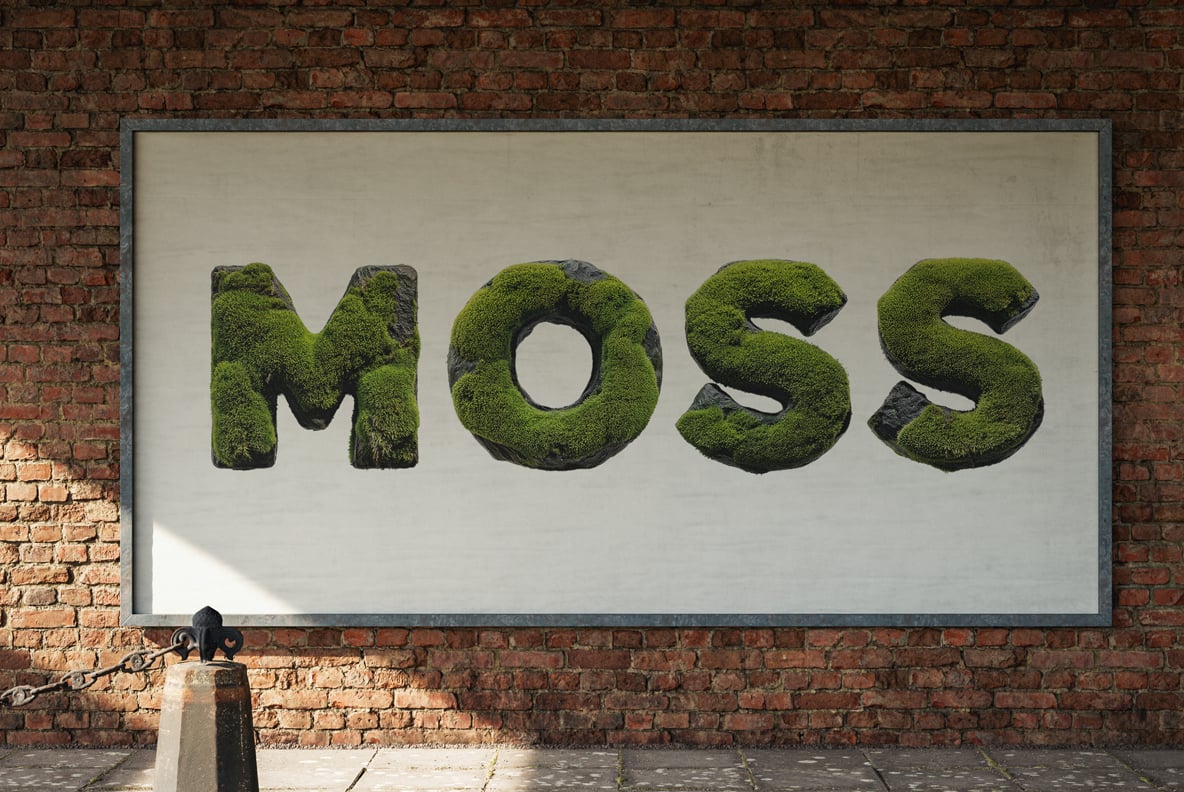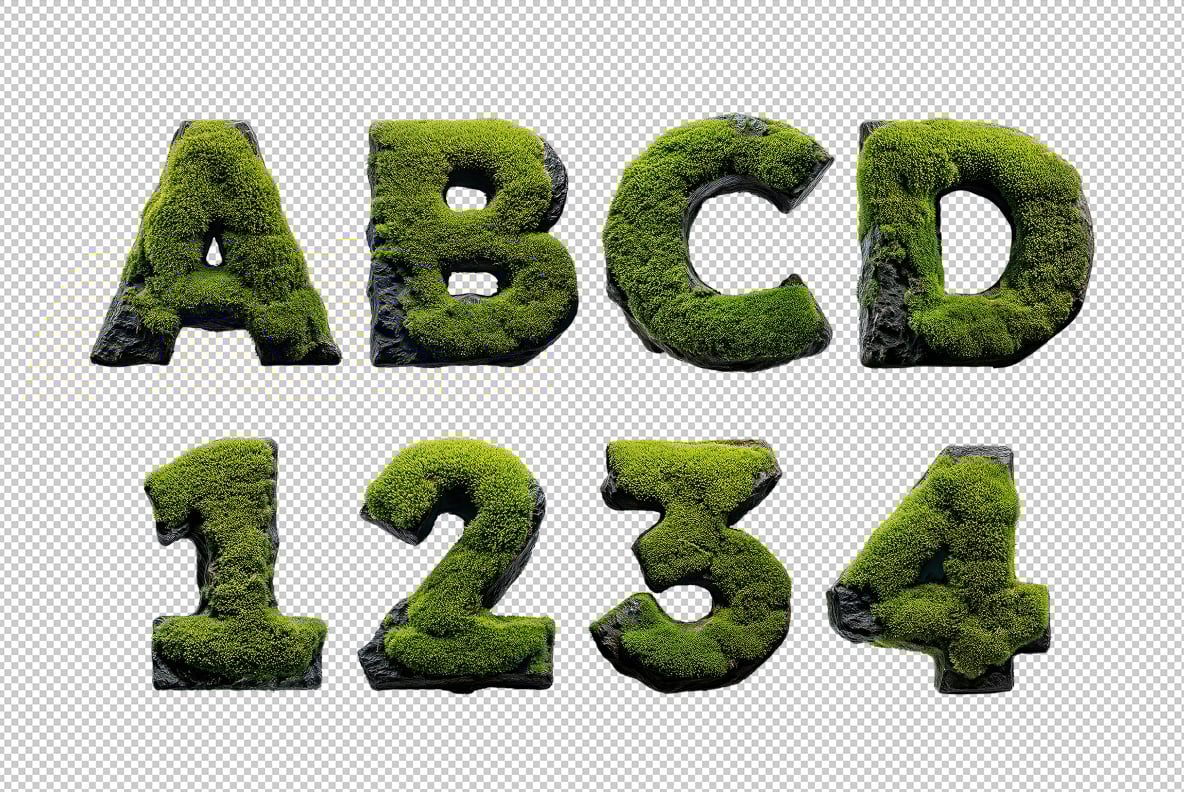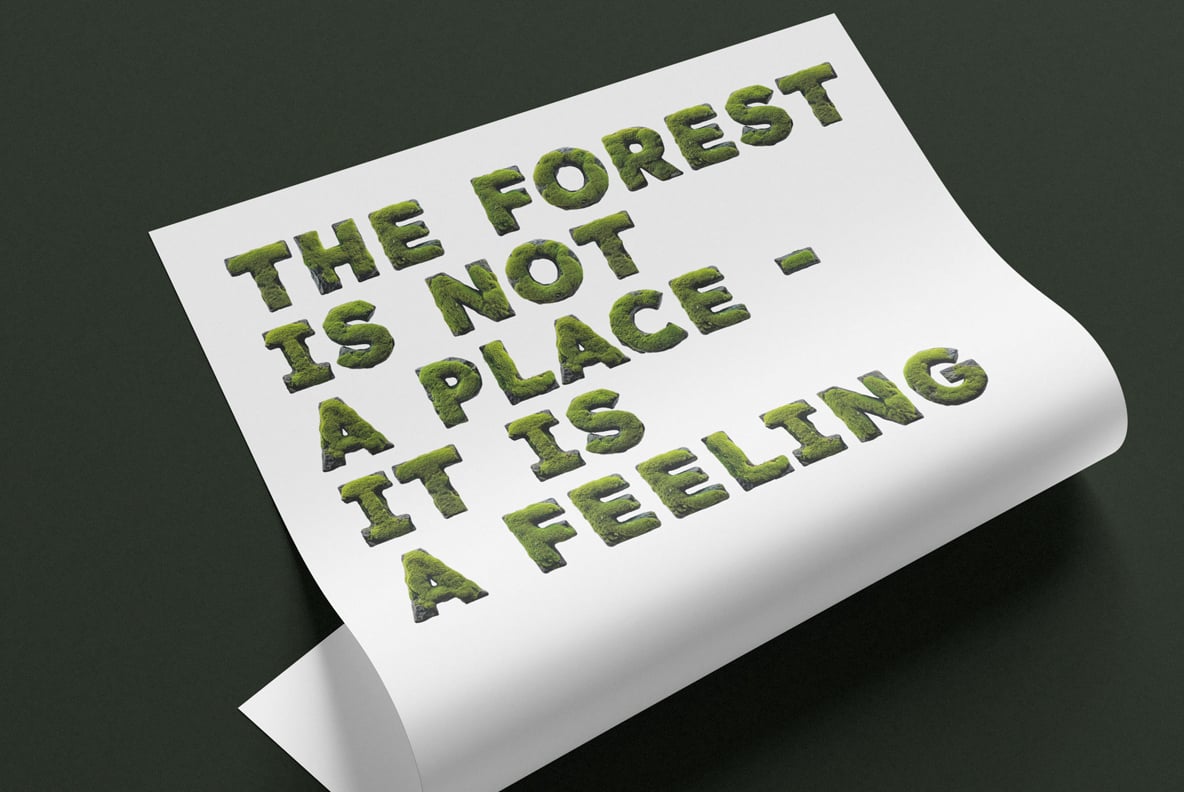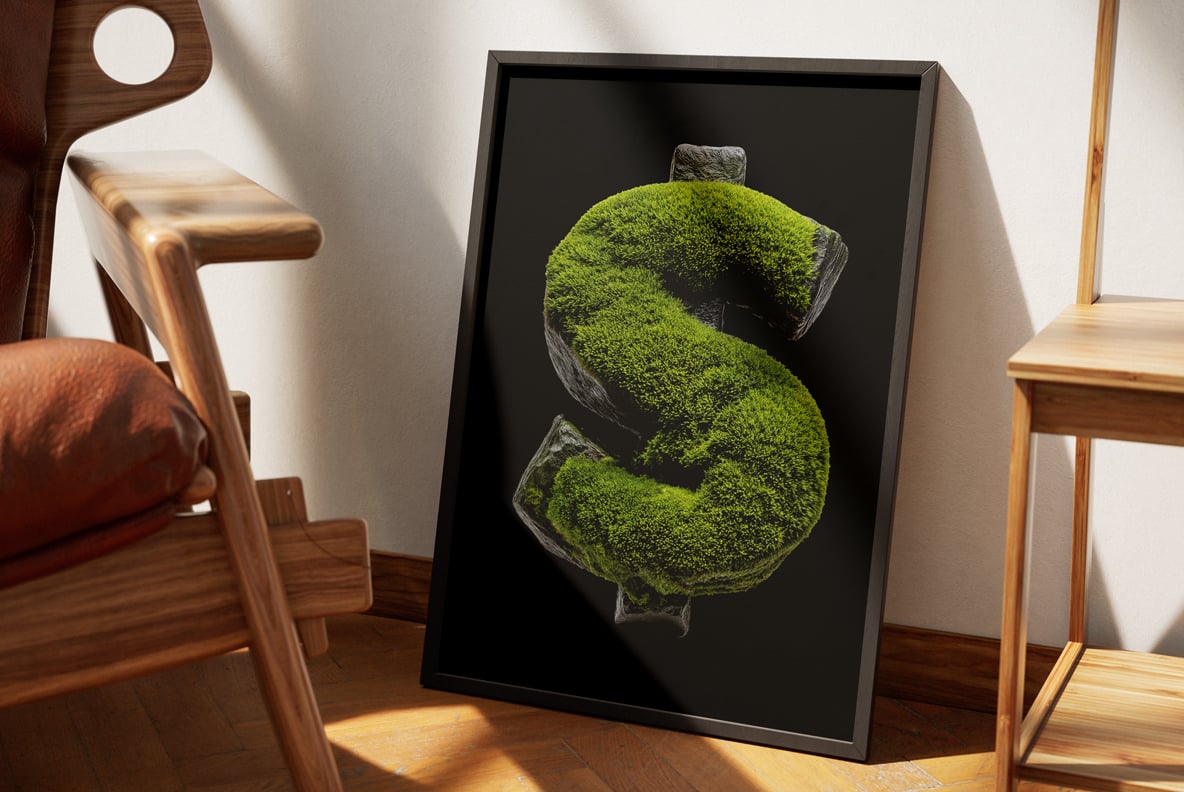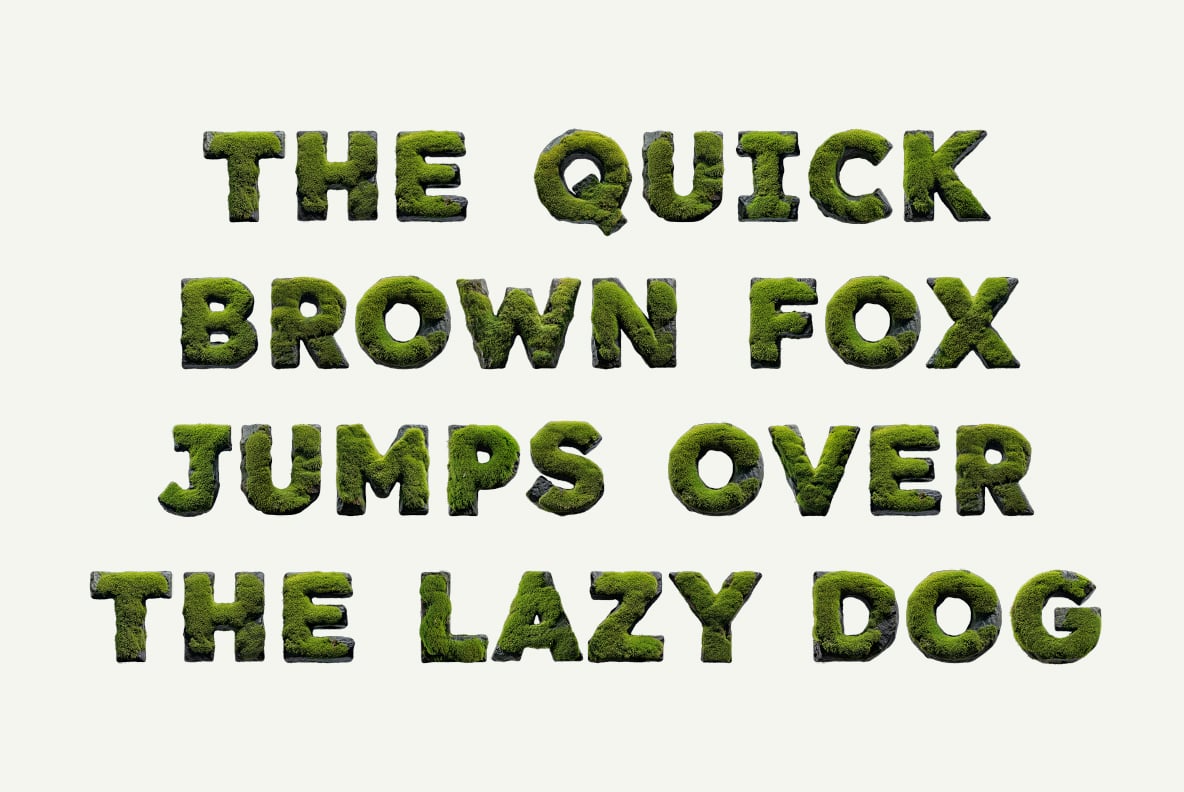
Moss on Rock Font
The Moss on Rock Font is a nature-inspired typeface that fuses raw stone surfaces with vibrant green moss for a bold yet organic look. Designed to evoke the timeless connection between earth and life, this font radiates natural elegance and strength. Each letter feels alive, as if carved from rock and gently overgrown by moss, creating a textured, tactile effect. Ideal for environmental design, outdoor brands, eco-friendly campaigns, and artistic posters, it brings a fresh, earthy atmosphere to any project. Use it to make powerful statements that celebrate sustainability, wilderness, and the beauty of nature’s resilience.
Others : ! ? - . ' $ € % & # @